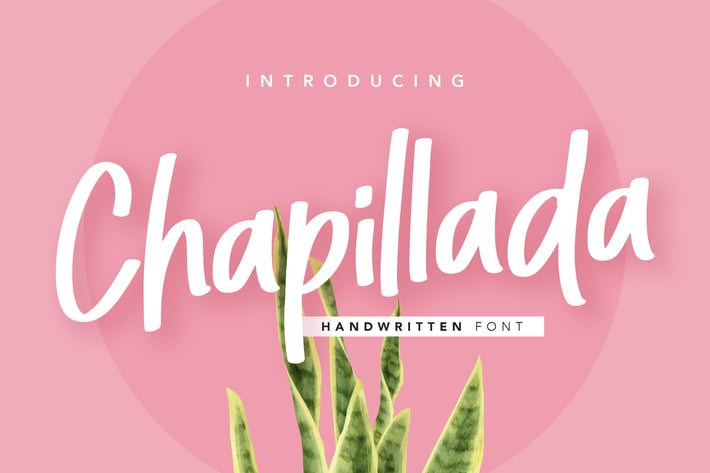
Chapillada Display Font
A stylish, modern and beautiful handwritten font with an elegant feel. Chapillada is perfect for display projects such as quoted text, hero text, logo, presentation, book cover, and product packaging. It's also perfect for fashion and fresh themed - or a stylish text overlay to any background image.
+ Uppercase & Lowercase letters
+ Numbering and Punctuation
+ Ligatures